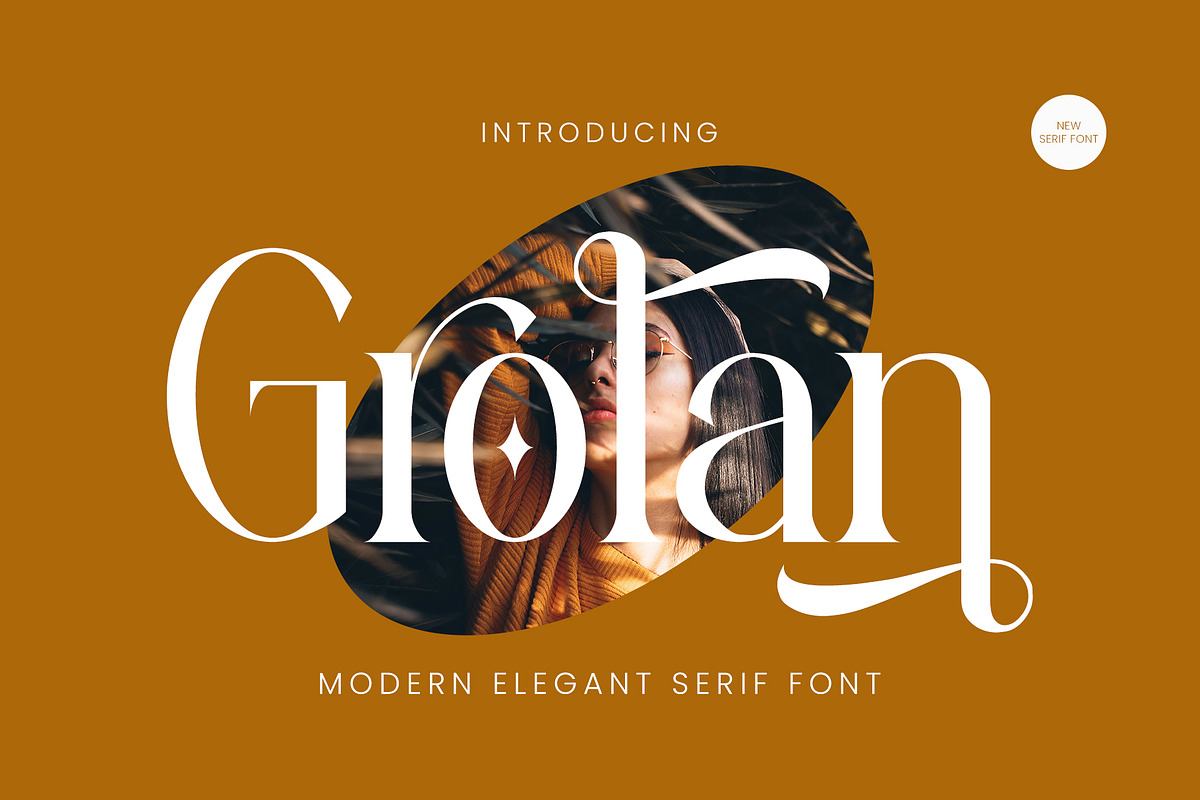
Make a strong, stylish impression with Grolan Serif Font Free Download — a bold serif typeface that blends modern aesthetics with classic elegance. Perfect for branding, editorial headlines, fashion lookbooks, luxury packaging, and web design, Grolan brings both authority and refinement to your typography.
Featuring sharp serifs, balanced proportions, and high contrast strokes, Grolan offers a polished, upscale look that stands out in both print and digital media. It includes uppercase and lowercase letters, numbers, punctuation, and stylistic alternates—ideal for testing a wide range of layout concepts.